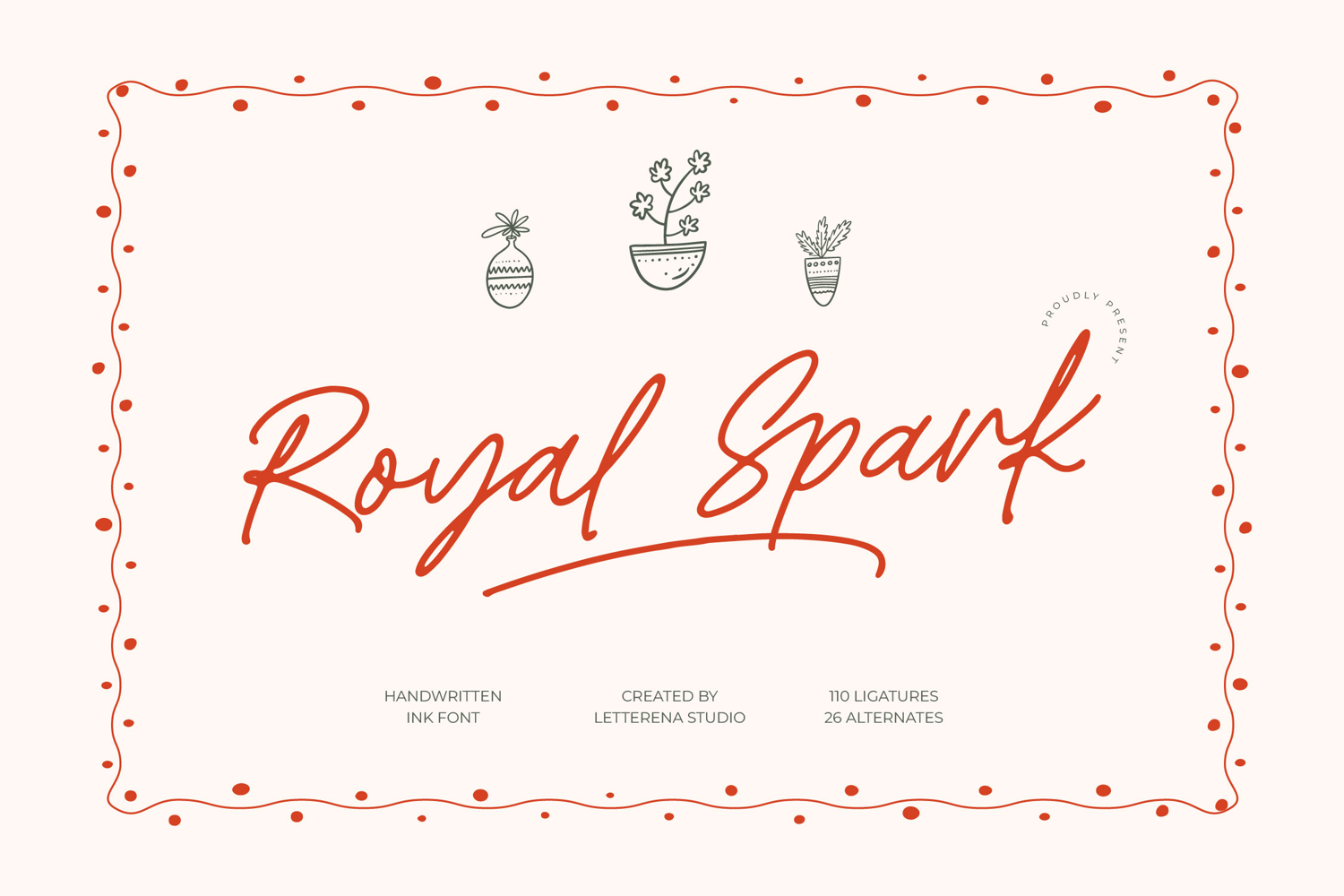
Royal Spark Handwritten Ink Font
Royal Spark
Royal Spark Italic
Royal Spark - Handwritten Ink Font , from Letterena, is a Luxury Script font, suitable for any projects such as: logos, branding projects, homeware designs, product packaging, mugs, quotes, posters, shopping bags, t-shirts, book covers, name card, invitation cards, greeting cards, label, photography, watermark, special events, and all your other luxury and beautiful projects that need a Luxury Script taste.
110 Ligature 26 Alternate & Swashes